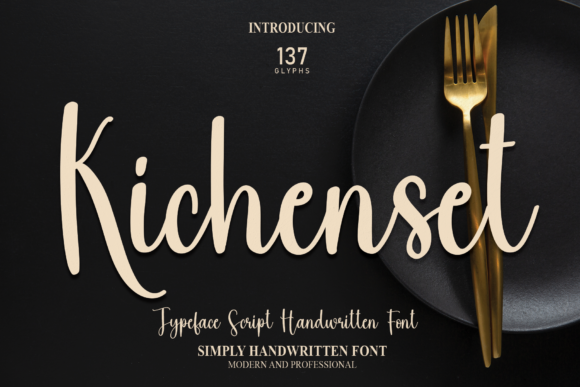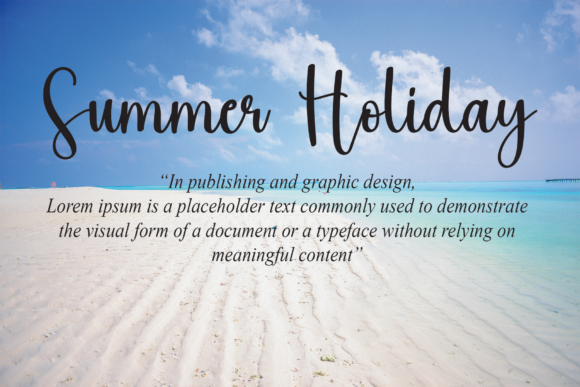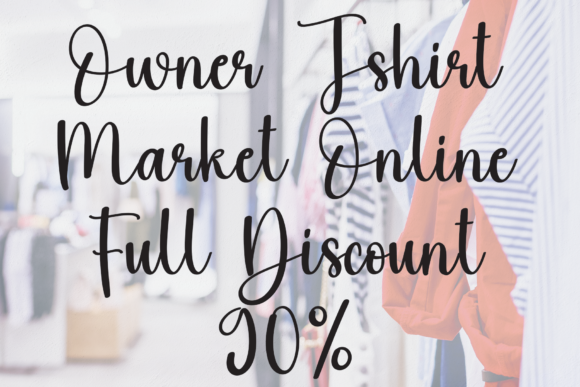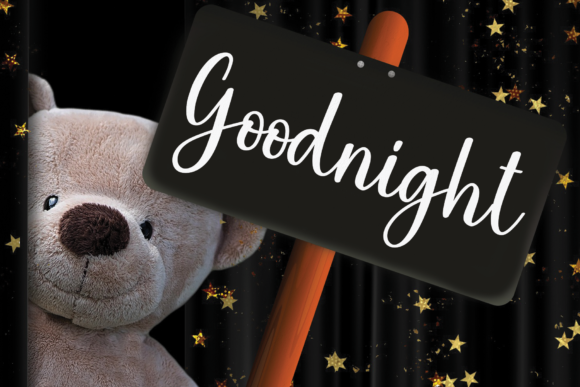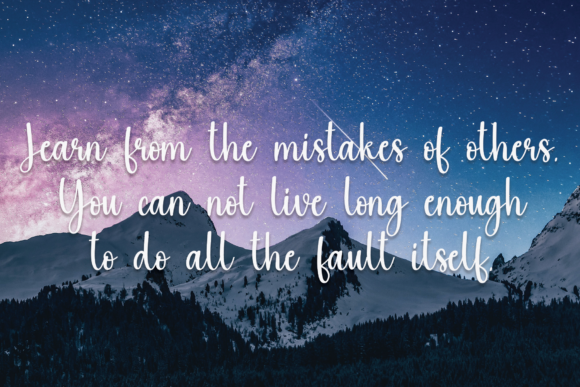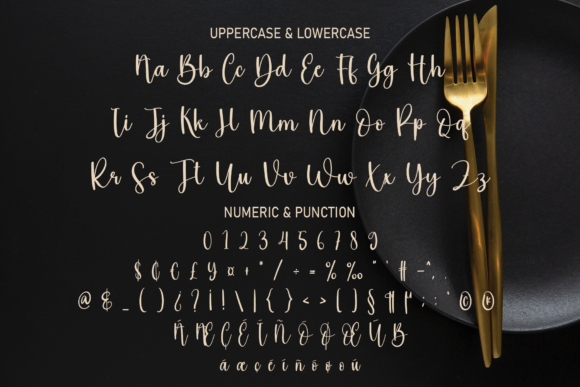
About Kichenset Font
Kichenset is a font that exudes an air of free-flowing elegance and contemporary flair. With its graceful script style, Kichenset effortlessly captures attention and adds a touch of sophistication to a wide range of design endeavors.
Imagine Kichenset gracing the logo of a modern culinary business. Its fluid and fashionable script creates a sense of movement, reflecting the dynamic nature of the culinary world. Whether it’s a restaurant, catering service, or cooking class, Kichenset’s stylish script instantly communicates a passion for food and a commitment to excellence.
For t-shirt printing, Kichenset’s unique script becomes a statement piece. Whether adorning shirts for food enthusiasts, chefs, or culinary events, this font adds a touch of flair to the design. Its free-flowing strokes and intricate letterforms contribute to an eye-catching visual, making the t-shirt a conversation starter and a fashion statement.
In the realm of creative products, Kichenset transforms ordinary items into stylish works of art. Imagine the font on product packaging for gourmet ingredients, kitchen gadgets, or artisanal food items. Its fashionable script not only communicates quality but also appeals to individuals who appreciate aesthetics in every aspect of their culinary experience.
For branding projects, Kichenset becomes a defining element that embodies the essence of the brand. Whether it’s a food blog, a cooking YouTube channel, or a specialty food store, Kichenset’s free-flowing and fashionable script adds a touch of creativity and sophistication to various touchpoints. The font’s versatility ensures that it seamlessly aligns with the brand’s identity, reinforcing its image and making it memorable.
Kichenset’s ability to adapt to various contexts showcases its versatility. Its free-flowing and fashionable script style adds a sense of artistic flair and contemporary elegance to any design it graces. The font’s flowing lines and distinctive characters capture attention and evoke a sense of creativity, making it an ideal choice for projects that aim to captivate and inspire.
In essence, Kichenset is not just a font; it’s a design asset that elevates the overall visual appeal of your creations. Its free-flowing and fashionable script style brings a touch of artistic elegance, ensuring that your designs stand out and resonate with your target audience.
Whether you’re working on a logo, t-shirt design, creative product, or branding project, let Kichenset be your font of choice. Its unique blend of free-flowing grace and contemporary fashion will infuse your designs with a sense of allure and creativity, making them truly remarkable in every way.